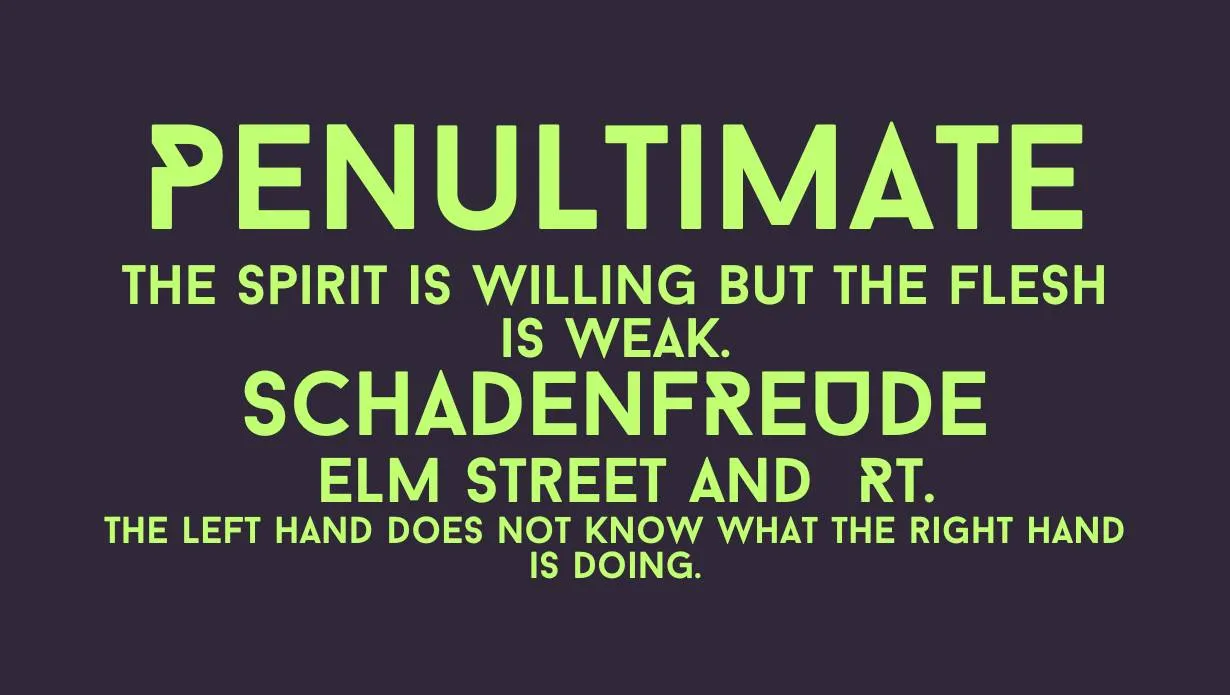
The Baron font is like writing that wants you to notice it. It uses strong and clear letters that look modern and important. The letters have bold lines and a cool design that makes them stand out.
When people use the Baron font, it’s like their words are saying, “Look at me!” This font is good for things that need to be bold and make a big statement. It’s often used when people want their writing to be confident and strong, like in titles or important messages.
| Designer | Frank Hemmekam |
| Style | Display |